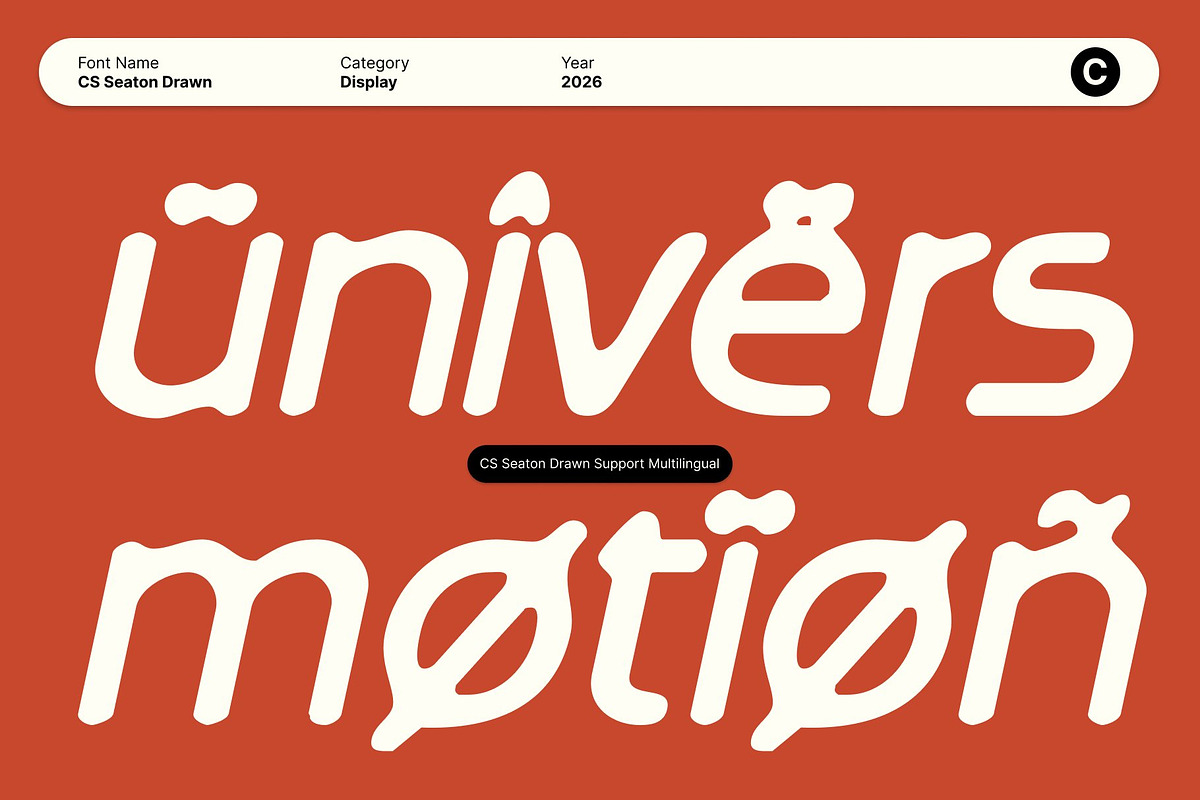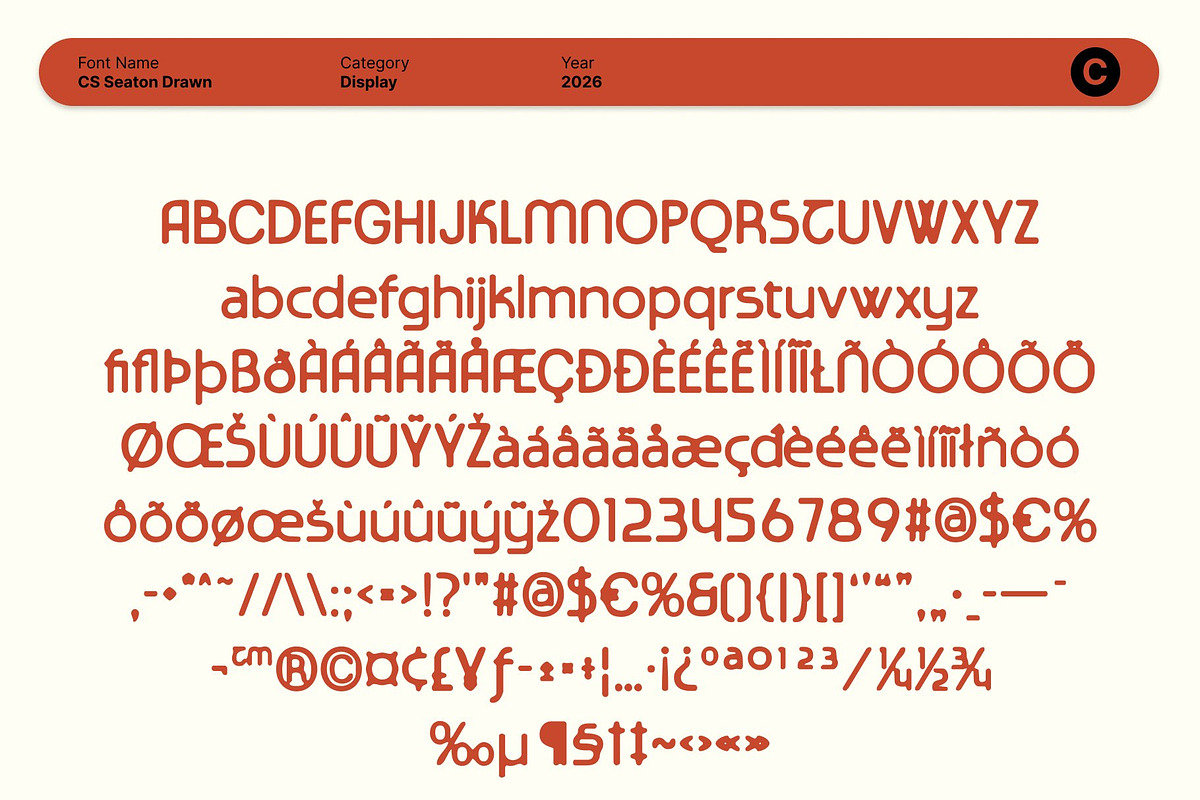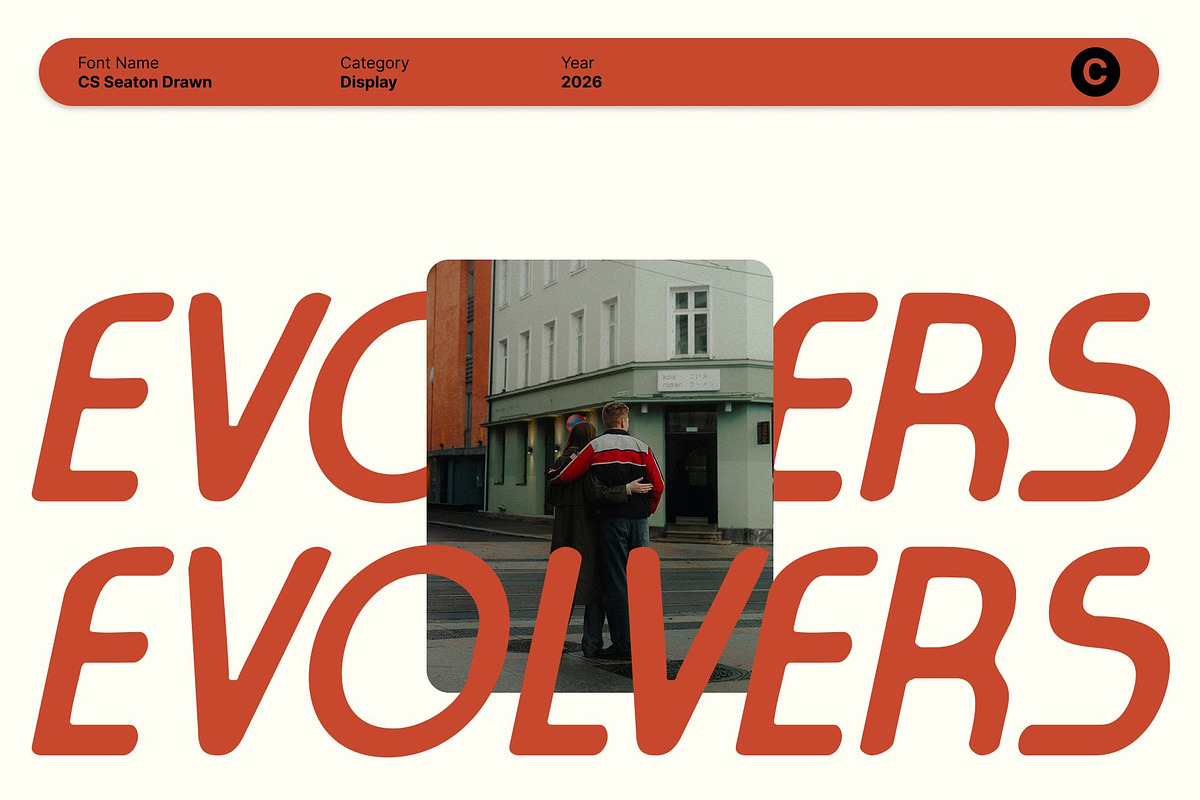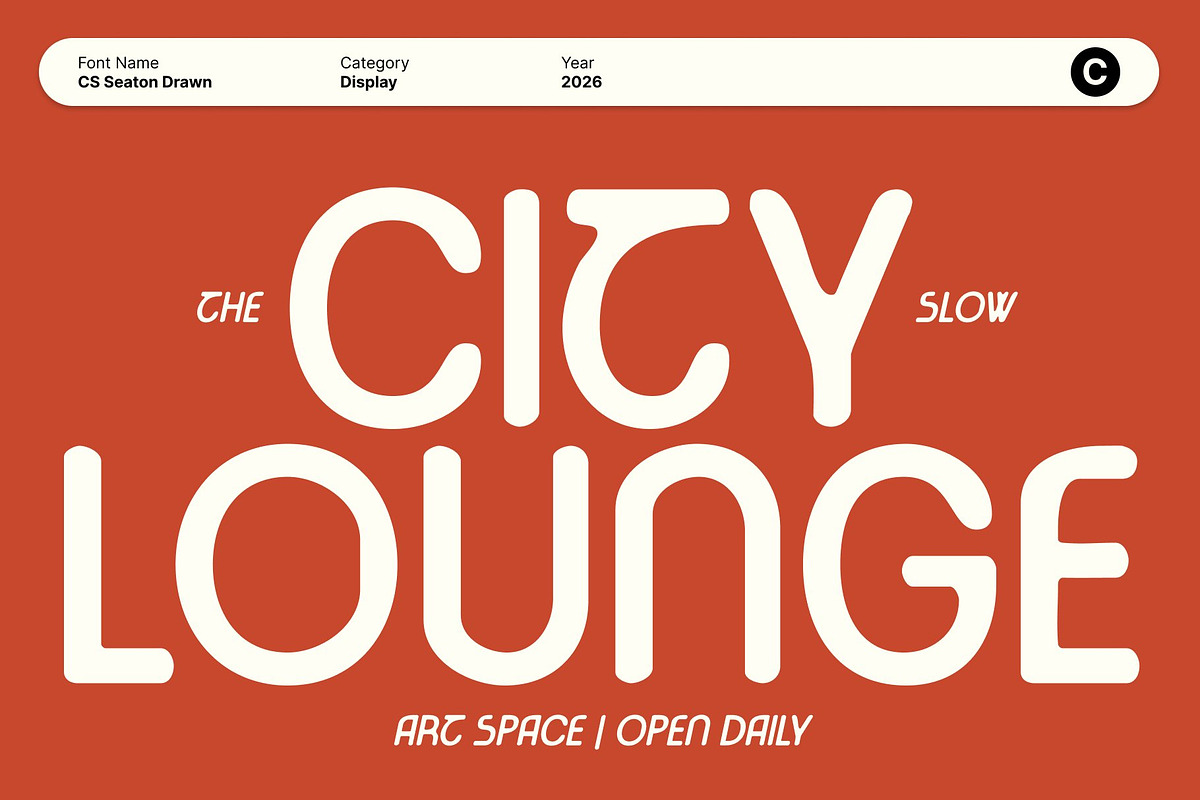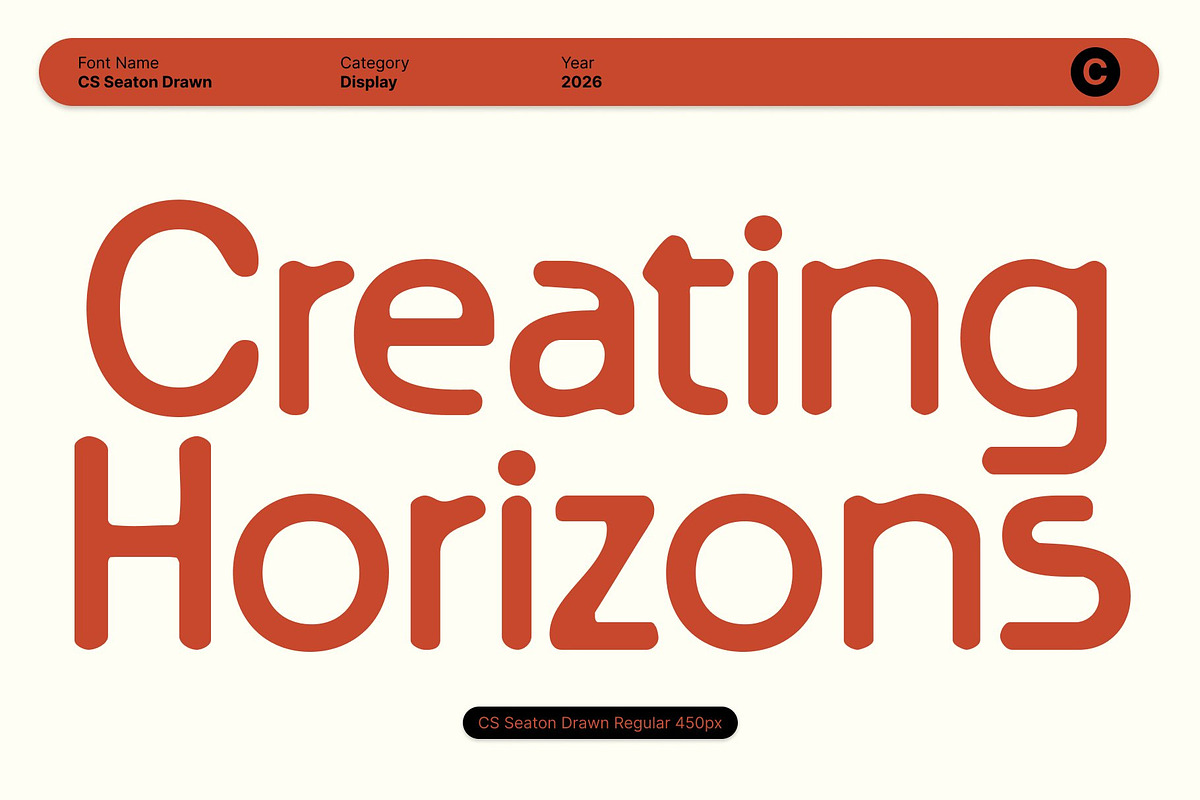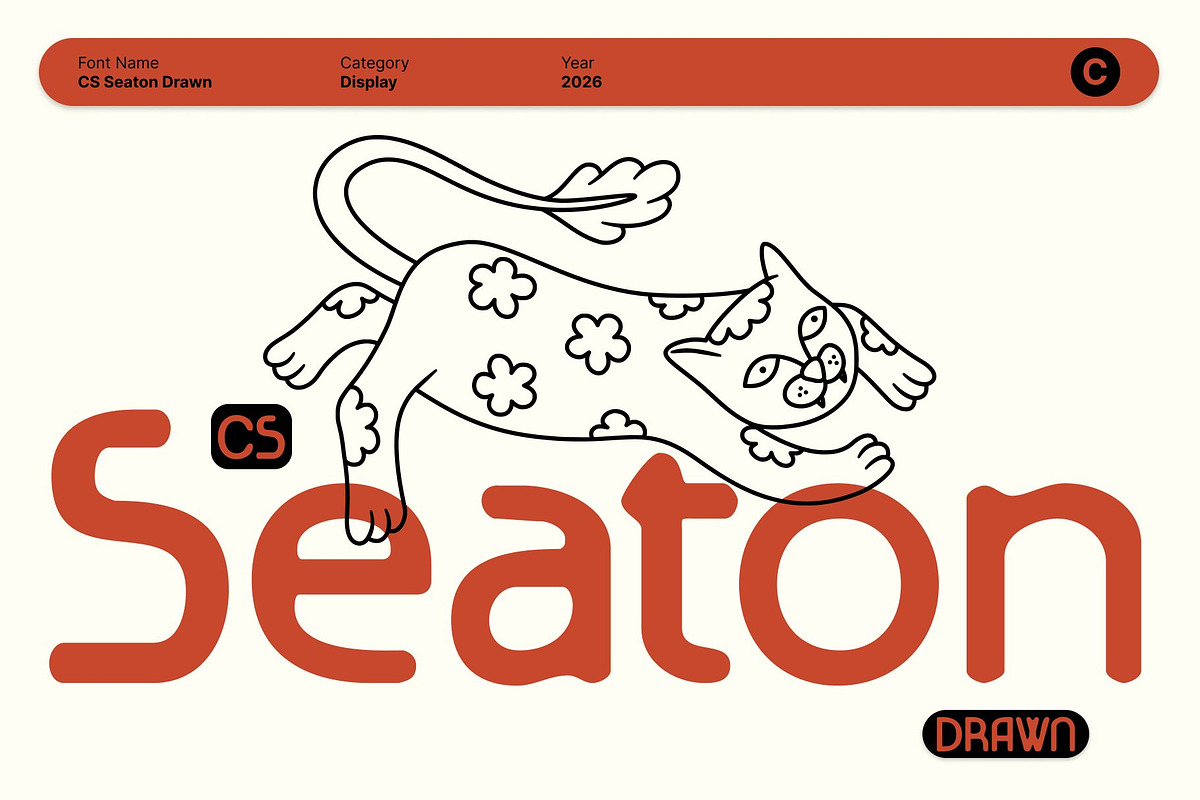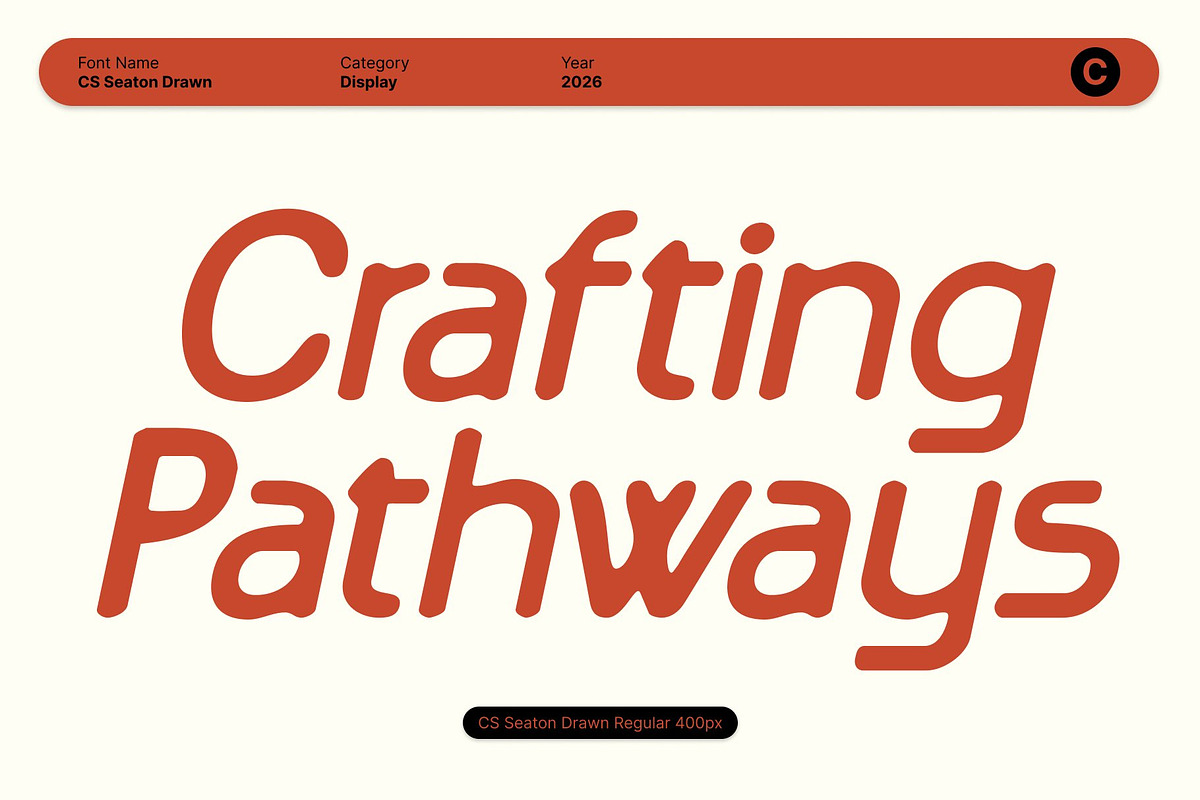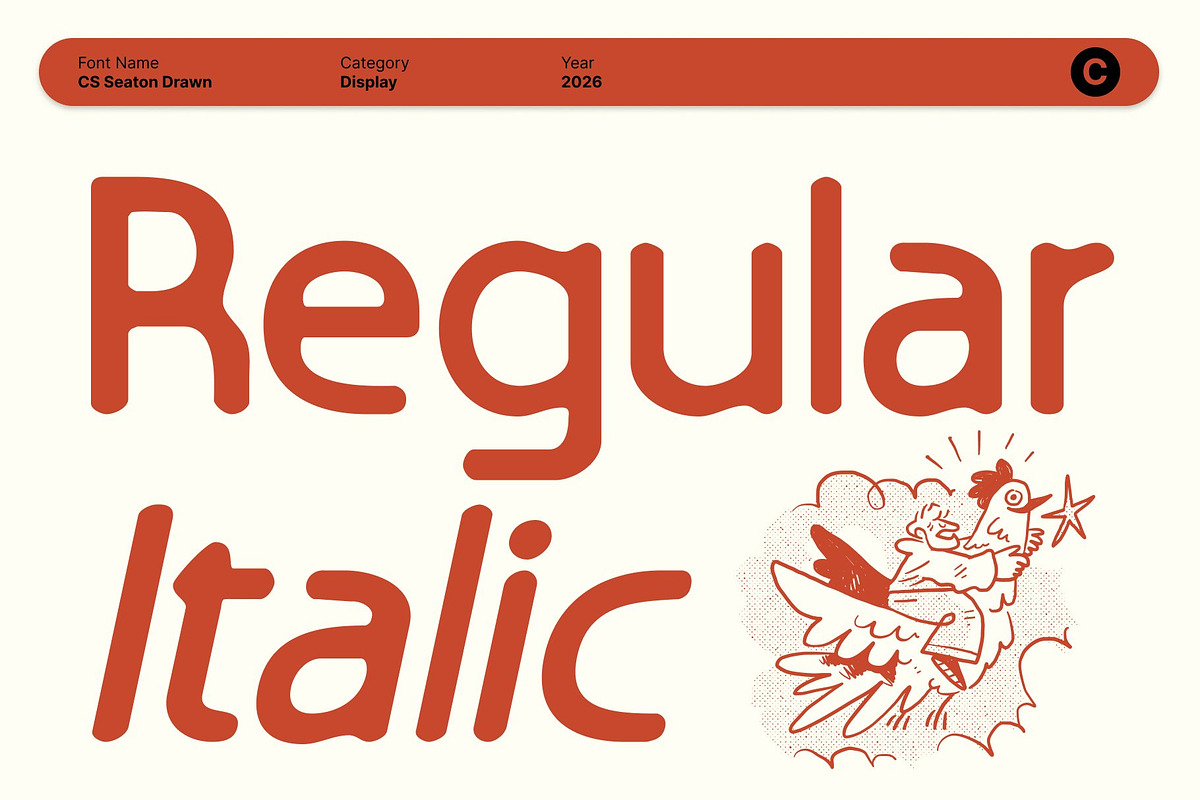
CS Seaton Drawn
CS Seaton Drawn – Modern Contemporary Sans Serif Font
Modern Contemporary Design with a Fresh Identity This is a modern sans serif font crafted with a contemporary approach and subtle hand-drawn character. Its clean structure is enhanced by a lightly drawn texture, giving the font a fresh visual identity that feels refined yet expressive. This combination sets it apart from standard minimalist typefaces.
Techno-Inspired Style with a Human Touch Subtle techno influences appear through angular nuances and sleek geometric forms, creating a futuristic impression without feeling rigid. The drawn details soften the structure, adding warmth and personality to its modern design. This balance results in a font that feels forward-looking, dynamic, and visually engaging.
Clean Shapes with Drawn Texture Versatility This font maintains clarity and precision while introducing a handcrafted feel. Its crisp sans serif foundation ensures excellent readability, while the drawn texture adds depth and uniqueness. This makes it adaptable for branding, editorial layouts, digital interfaces, and contemporary visuals.
Ideal for Modern, Tech, and Minimalist Projects Perfect for posters, websites, logos, UI design, and product packaging, this font delivers a clean yet expressive presence. Its modern form, techno edge, and subtle drawn finish allow designers to create visuals that feel innovative, professional, and confidently modern.
- CS Seaton Drawn Regular
- CS Seaton Drawn Italic